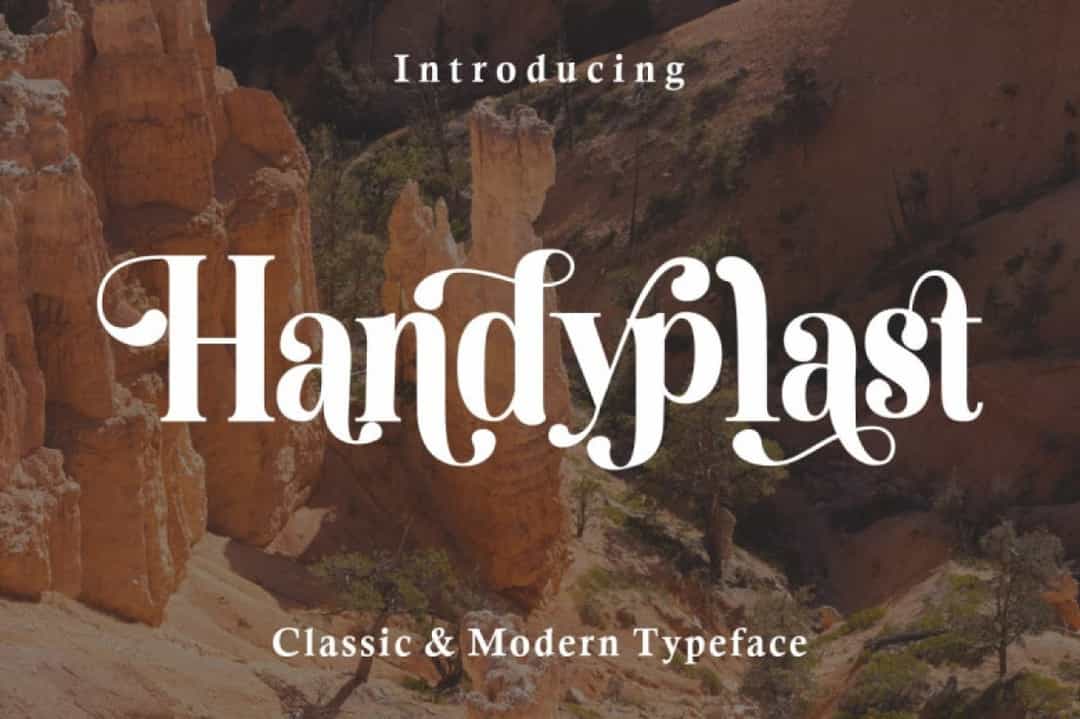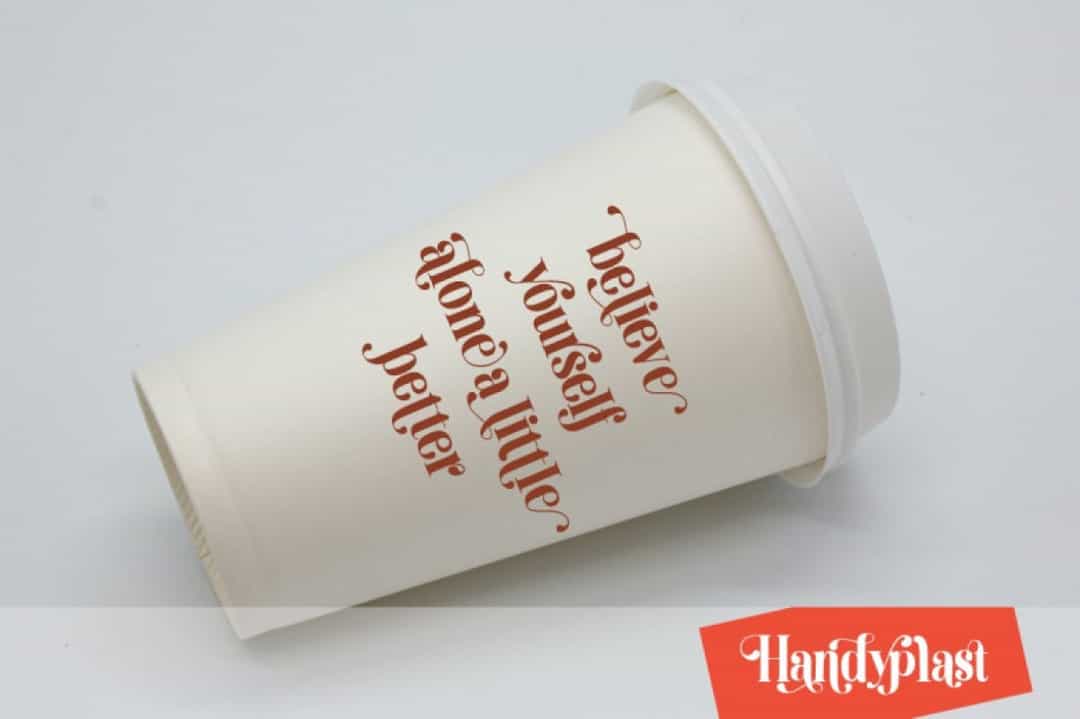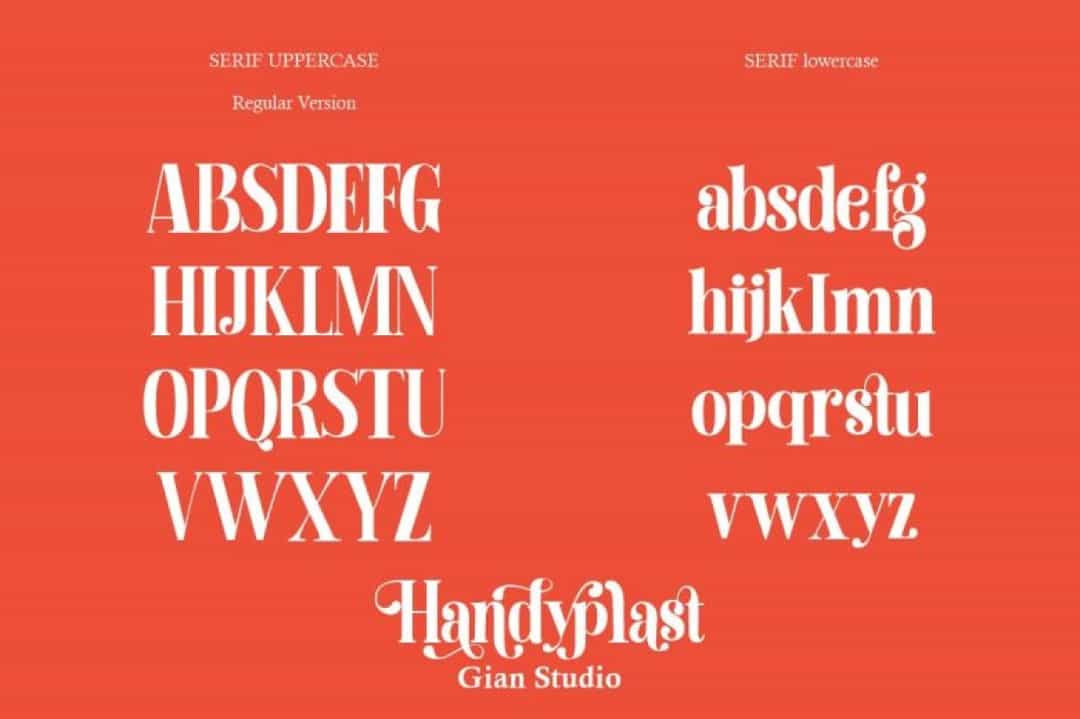
Handyplast is an elegant serif typeface that comes equipped with curly ligatures. Choose Handyplast for its boldness, stylish appearance, modern touch, or timeless classic design – it will draw the eye and get noticed for sure! It will bring attention to both your company and design!